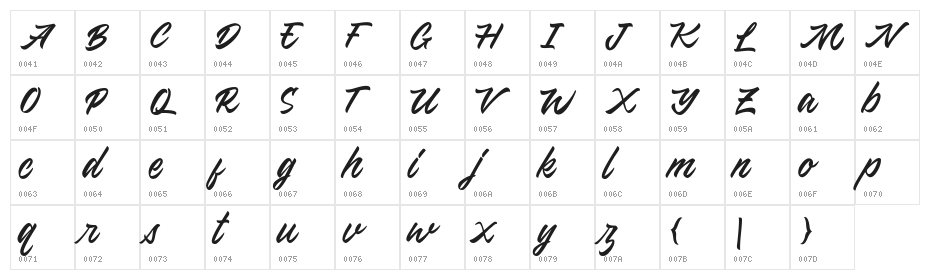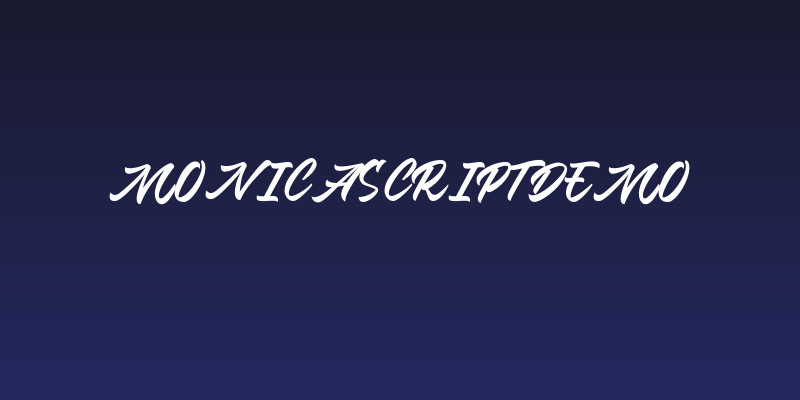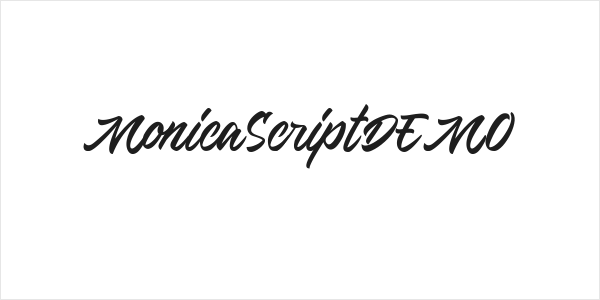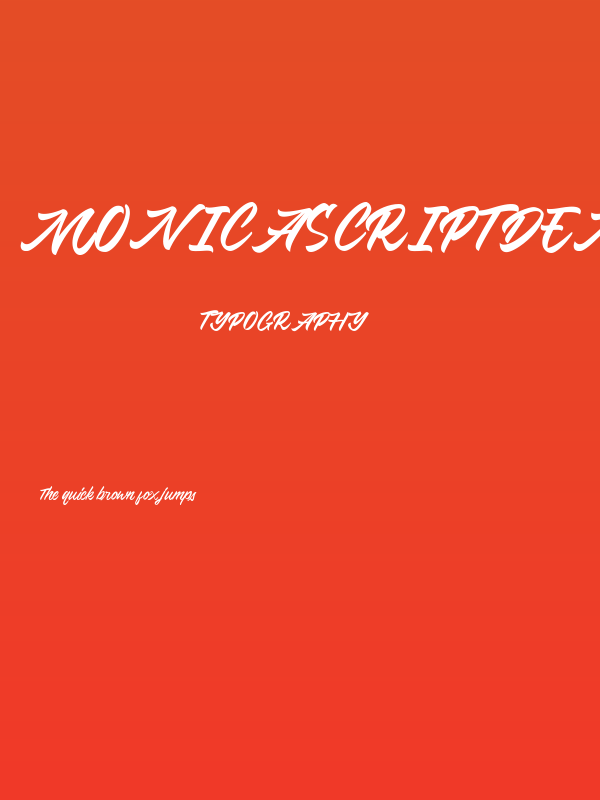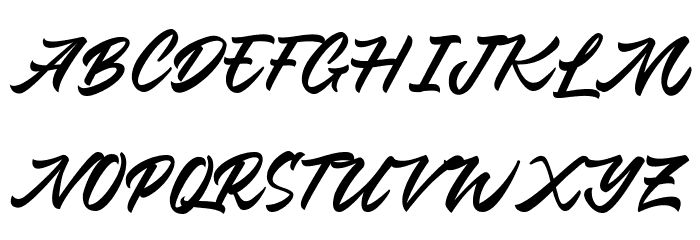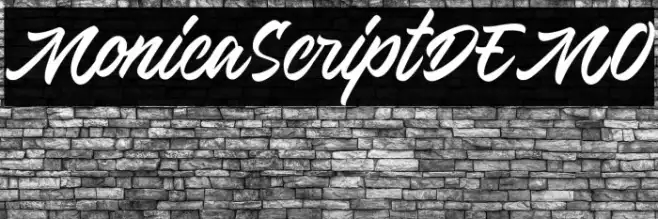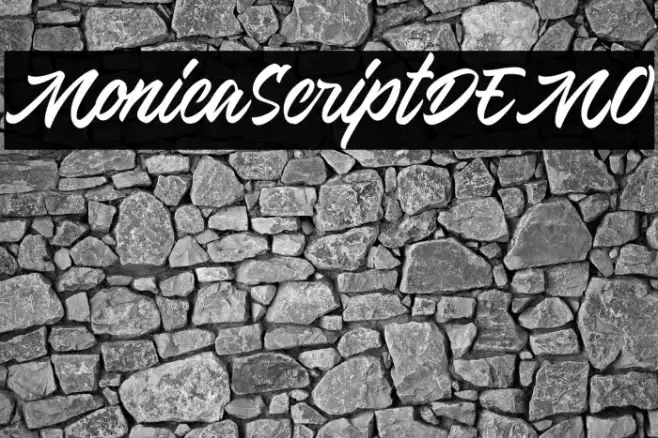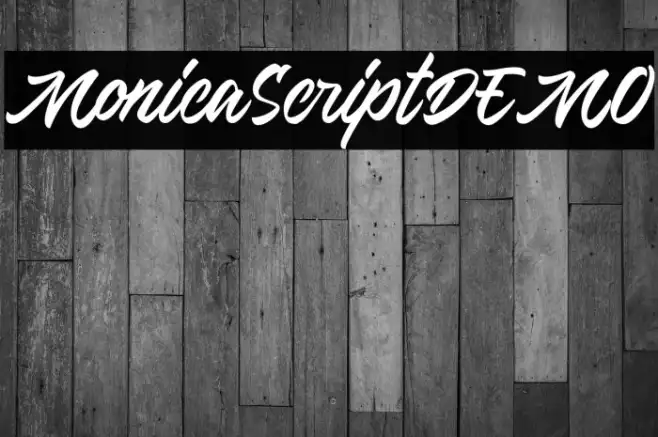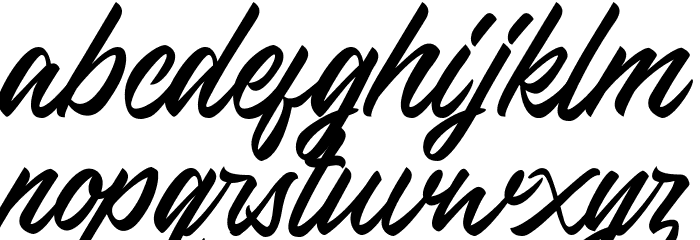
MonicaScriptDEMO Font
MonicaScriptDEMO Description
This font features a dynamic and flowing script style, characterized by its elegant and cursive letterforms. The strokes are smooth and connected, giving it a handwritten appearance that is both stylish and sophisticated. The uppercase letters are bold and prominent, while the lowercase letters maintain a consistent flow, enhancing readability. The font exhibits a high contrast in stroke thickness, with thick downstrokes and thinner upstrokes, which adds to its visual appeal. This script style is perfect for creating a sense of elegance and formality in design projects.
| Proposed Projects | Ideal for wedding invitations, greeting cards, branding, and elegant logo designs. |